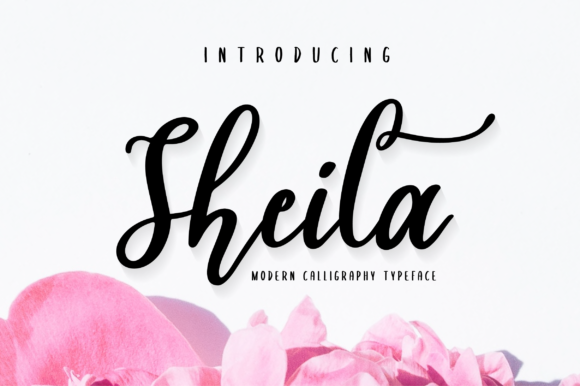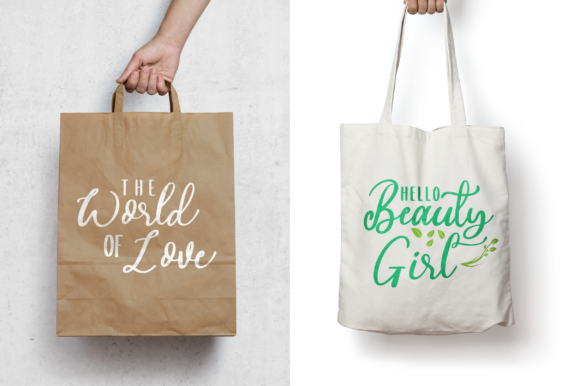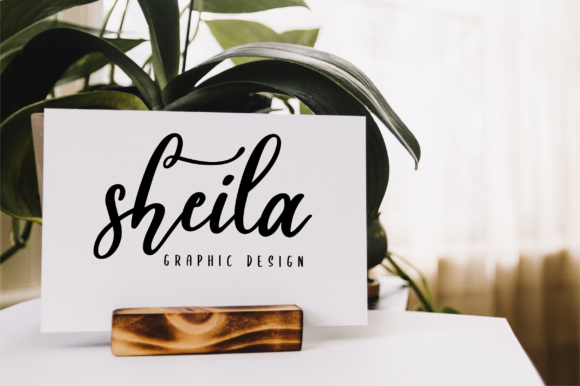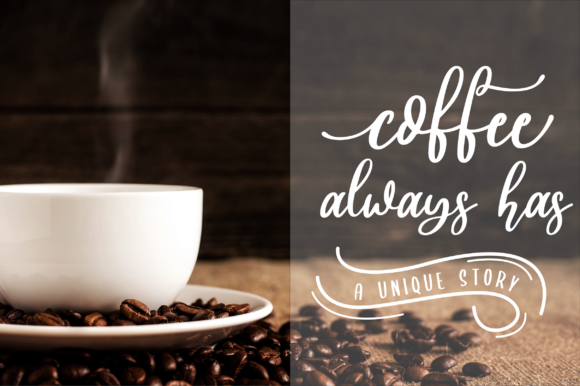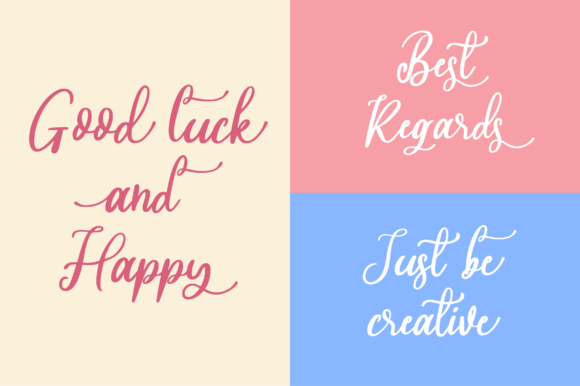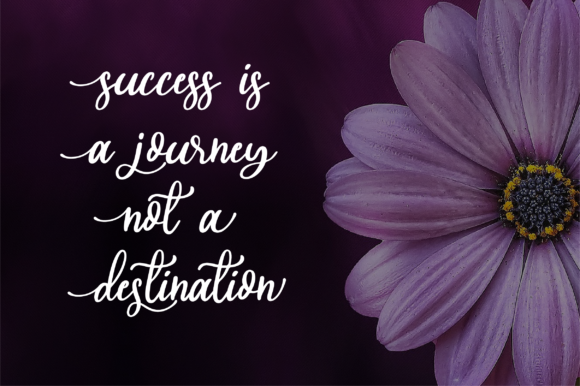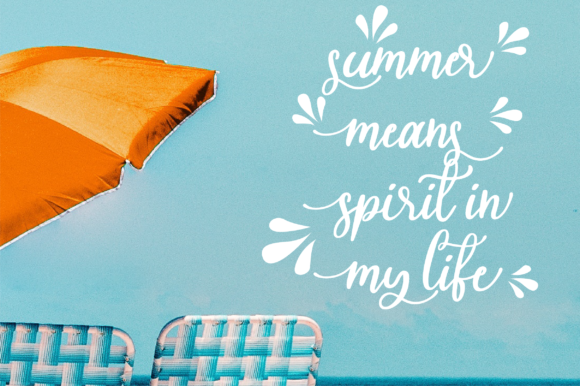
HomeScript FontsSheila Script Font Script Fonts Sheila Script Font FacebookXPinterestWhatsApp Sheila Script Font Poster 2 Sheila Script Font Poster 3 Sheila Script Font Poster 4 Sheila Script Font Poster 5 Sheila Script Font Poster 6 Sheila Script Font Poster 7 About Sheila Script Font Sheila is a stylish and lovely script with beautiful swashes. Fall in love with its romantic charm! DOWNLOAD ON CREATIVE FABRICAThis font is sold and delivered by Creative Fabrica. Font Canyon may earn a commission if you buy through this link. People also explored Arlie Font Yummy Font Eye Balls Duo Font Bangkok Riverside Font Groovy Halloween Font Julietta Font Garlic Butter Font Adelaide Font Observe Font 329 0 TagsSheila Script Font Previous articleJackpot Script FontNext articleRestyla Script Font LEAVE A REPLY Cancel reply Comment: Please enter your comment! Name:* Please enter your name here Email:* You have entered an incorrect email address! Please enter your email address here Website: Save my name, email, and website in this browser for the next time I comment. Personal Use Free The Moshbusther Personal Use Free Read more about this font Rare Knuckle Personal Use Free Read more about this font Kilsonburg Personal Use Free Read more about this font Aelten Personal Use Free Read more about this font BLOG Fonts That Capture the Spirit of New York City New York City is more than just a place—it’s an experience, a rhythm, a visual language... Modern Sans-Serif Fonts That Brands Love in 2025 Top 7 Google Fonts Alternatives for Faster and Privacy-Friendly Web Design (2025) Transform Your Website: Elevate Your Typography with 7 Best Web Font Generators